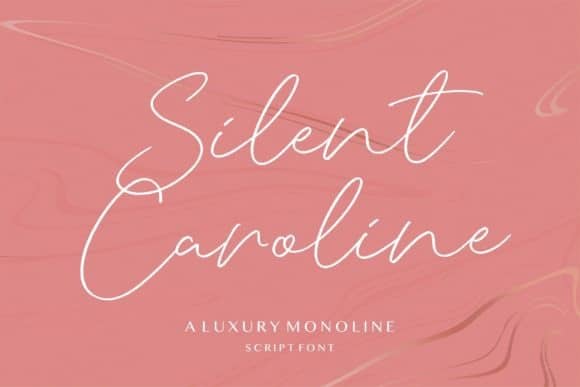
Silent Caroline Font
Silent Caroline Handwritten a font with stylish monoline script and very suitable for your beautiful projects. It’s designed and shared by Letterative Studio. Silent Caroline is perfect for product packaging, branding project, megazine, social media, wedding, or just used to express words above the background.